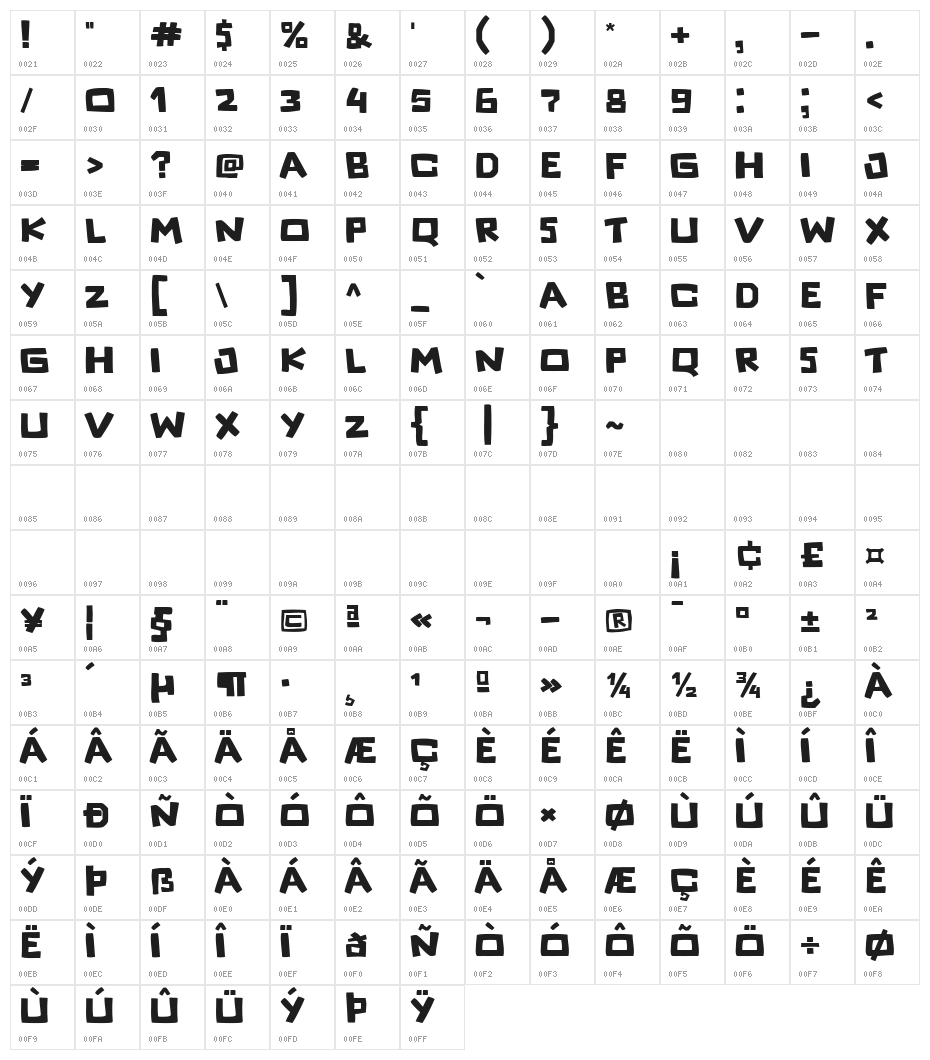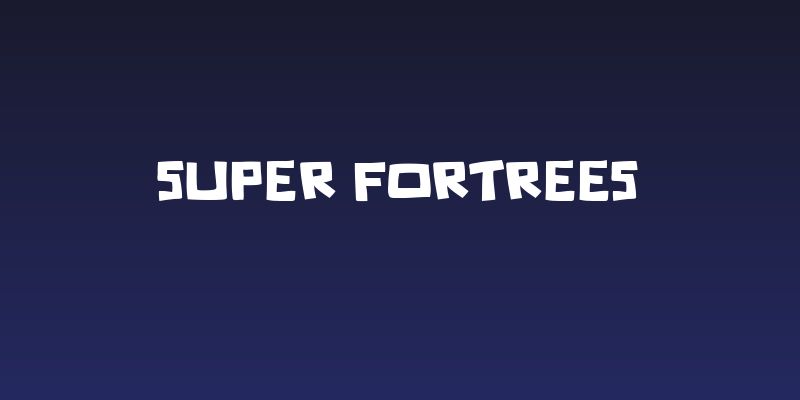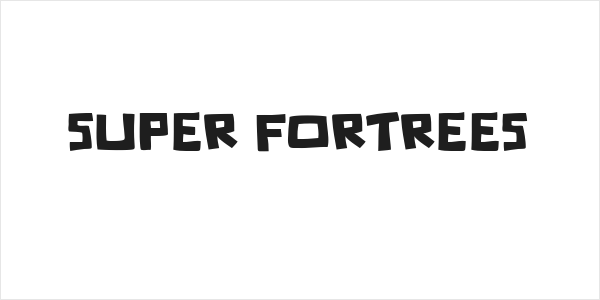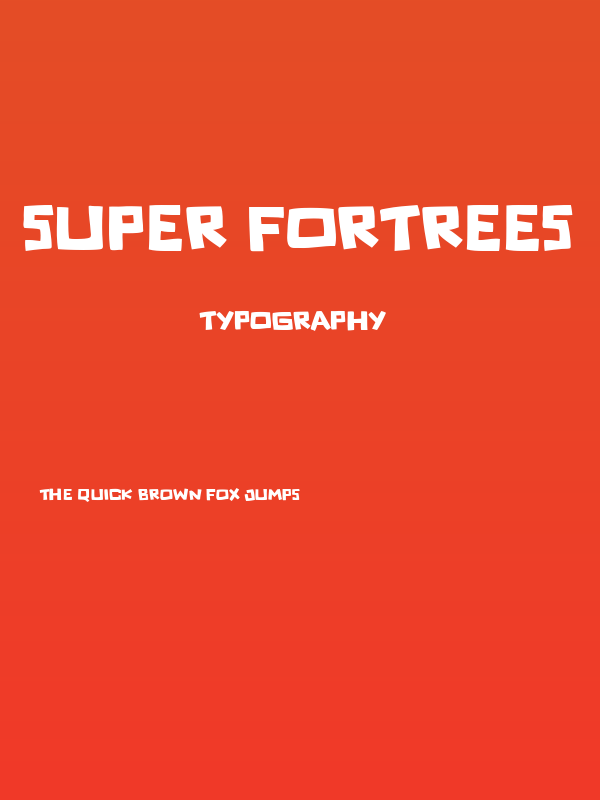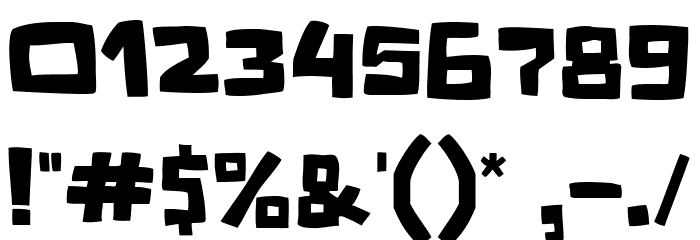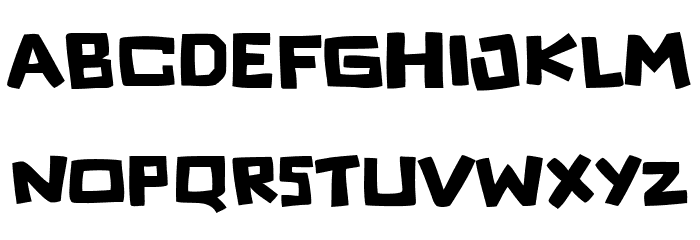
Super Fortrees Font
Super Fortrees Description
This font features a bold and playful design with a distinctly irregular and hand-drawn appearance. The characters are slightly tilted and vary in width, giving them a dynamic and energetic feel. The uppercase and lowercase letters maintain a consistent style, with thick strokes and exaggerated curves. Numbers and special characters follow the same whimsical pattern, making the font suitable for creative and informal applications. The overall look is reminiscent of graffiti or comic book lettering, adding a sense of fun and spontaneity.
| Overall Style | Playful, Energetic, Hand-drawn |
| Use Case | Headlines, Posters, Logos |
| Proposed Projects | Ideal for comic books, children's books, posters, and playful branding. |